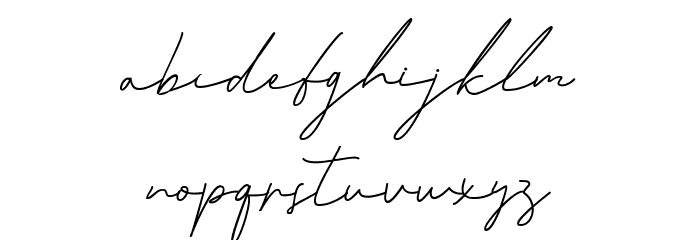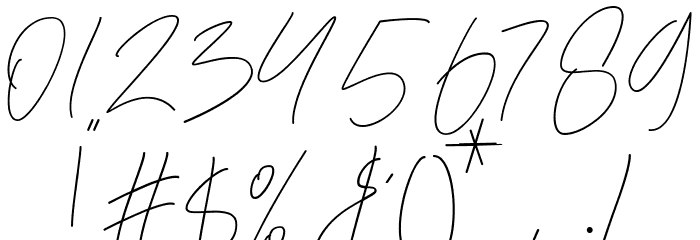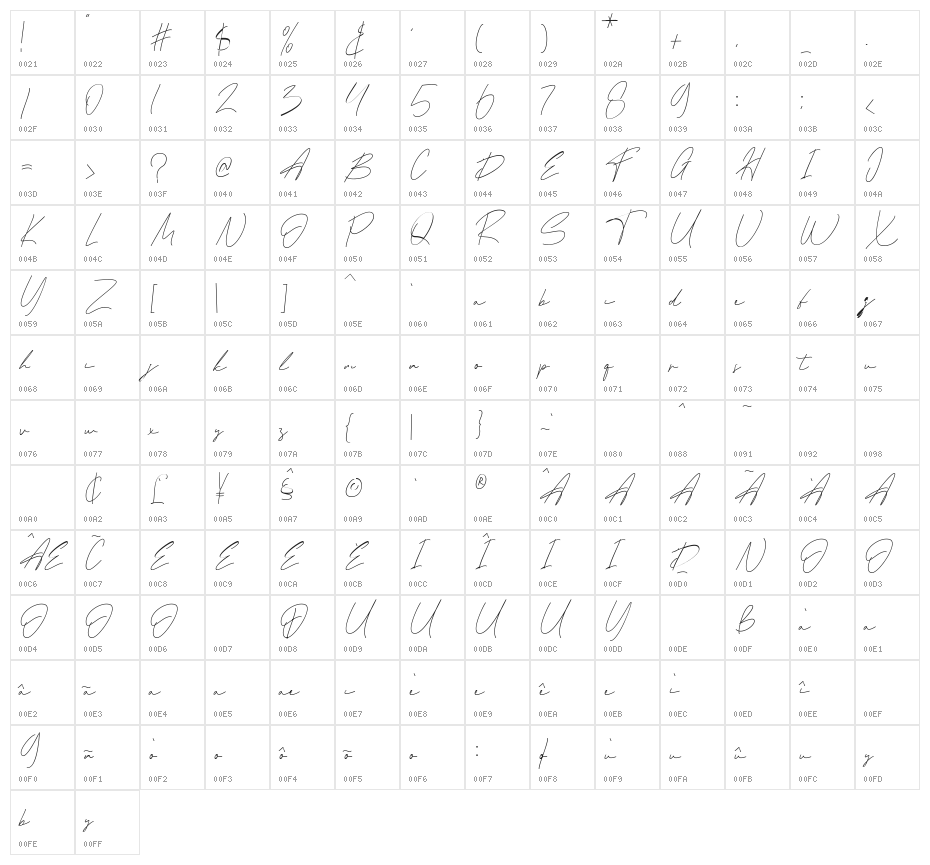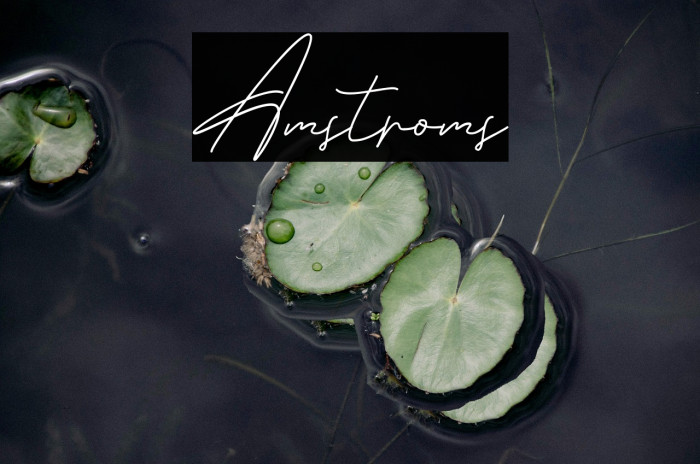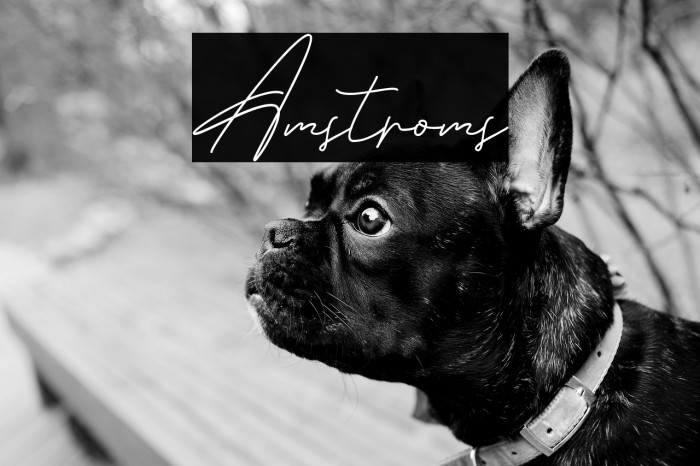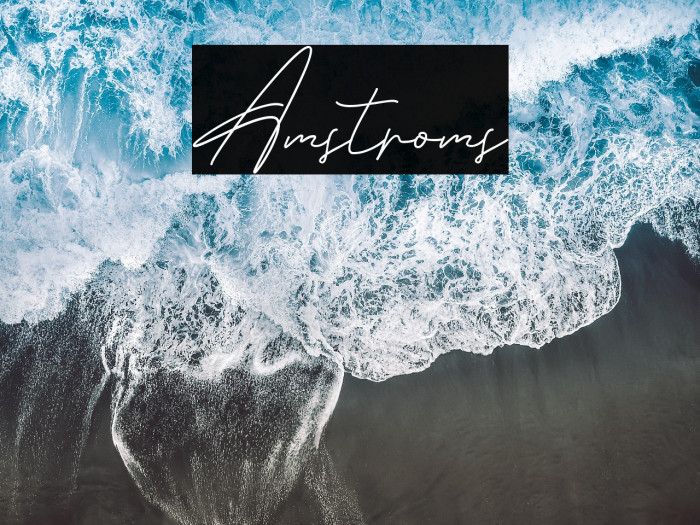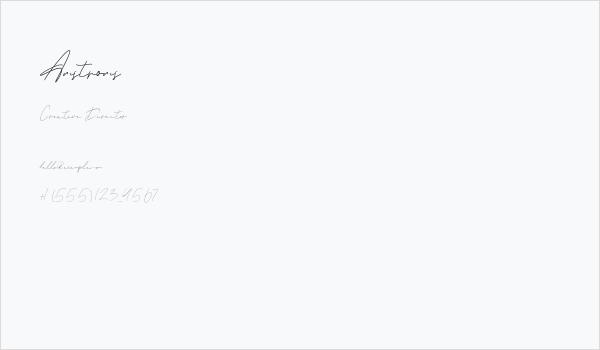
Amstroms Font
This font exudes a casual elegance with its fluid, handwritten style. The letters are gracefully connected, creating a seamless flow that mimics natural handwriting. The strokes are thin and delicate, adding a touch of sophistication and charm. The uppercase letters maintain a consistent height, while the lowercase letters exhibit a slight slant, enhancing the handwritten effect. Numbers and special characters are crafted with the same attention to detail, ensuring uniformity across all elements. The overall appearance is both stylish and approachable, making it suitable for a variety of creative applications.
A fluid, elegant handwritten font with thin, delicate strokes.
- Proposed Projects: Ideal for wedding invitations, personal branding, greeting cards, and artistic projects.
- Use Case: Logos, Invitations, Artistic projects